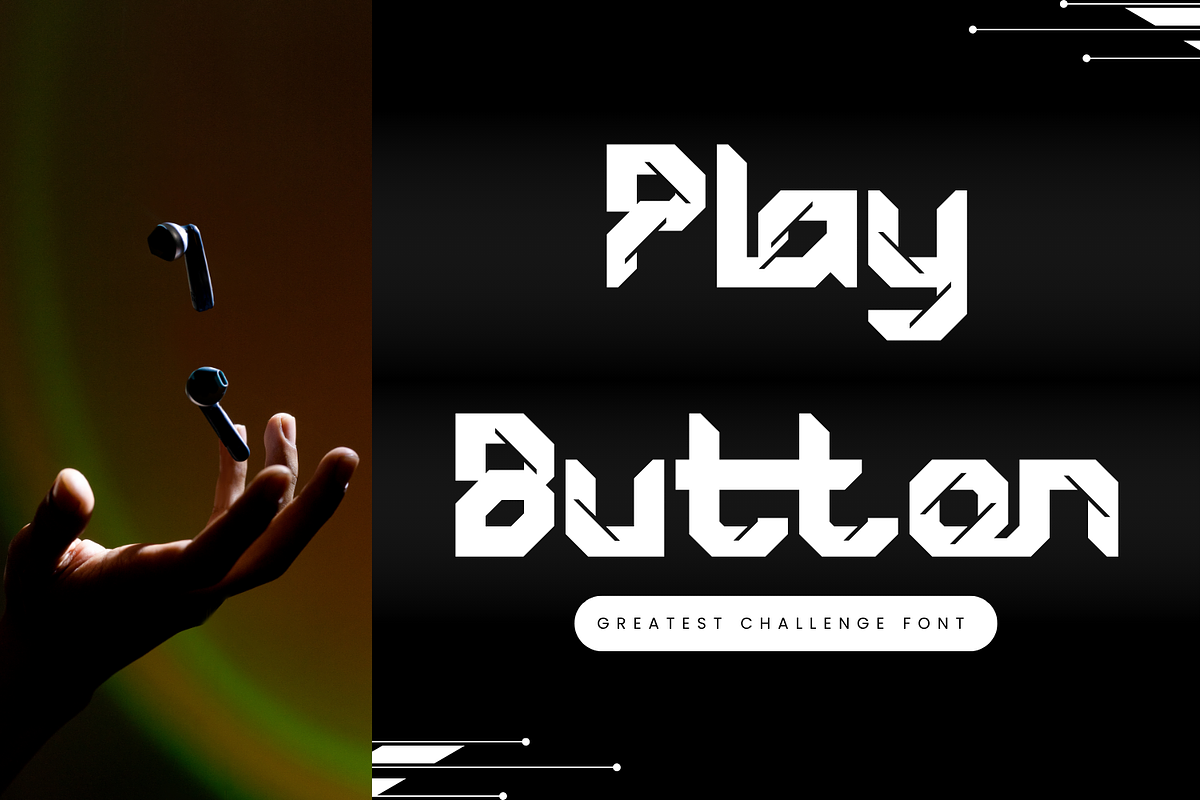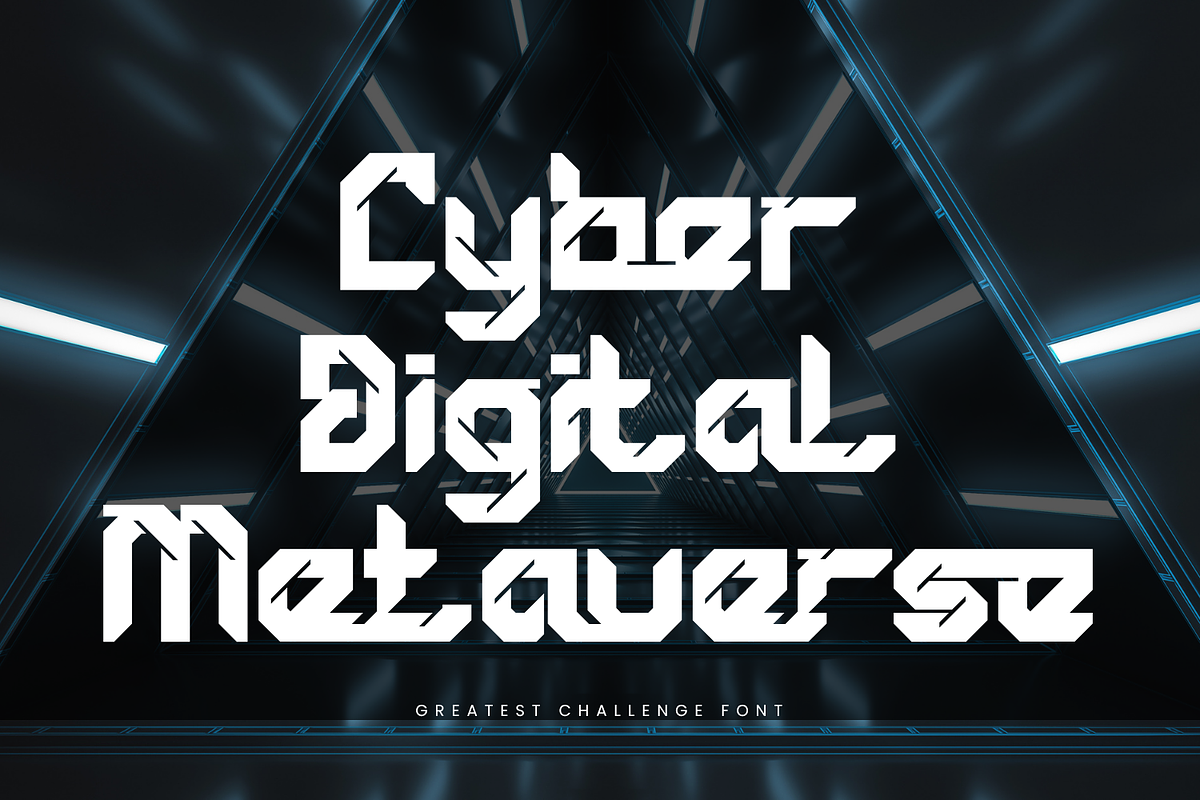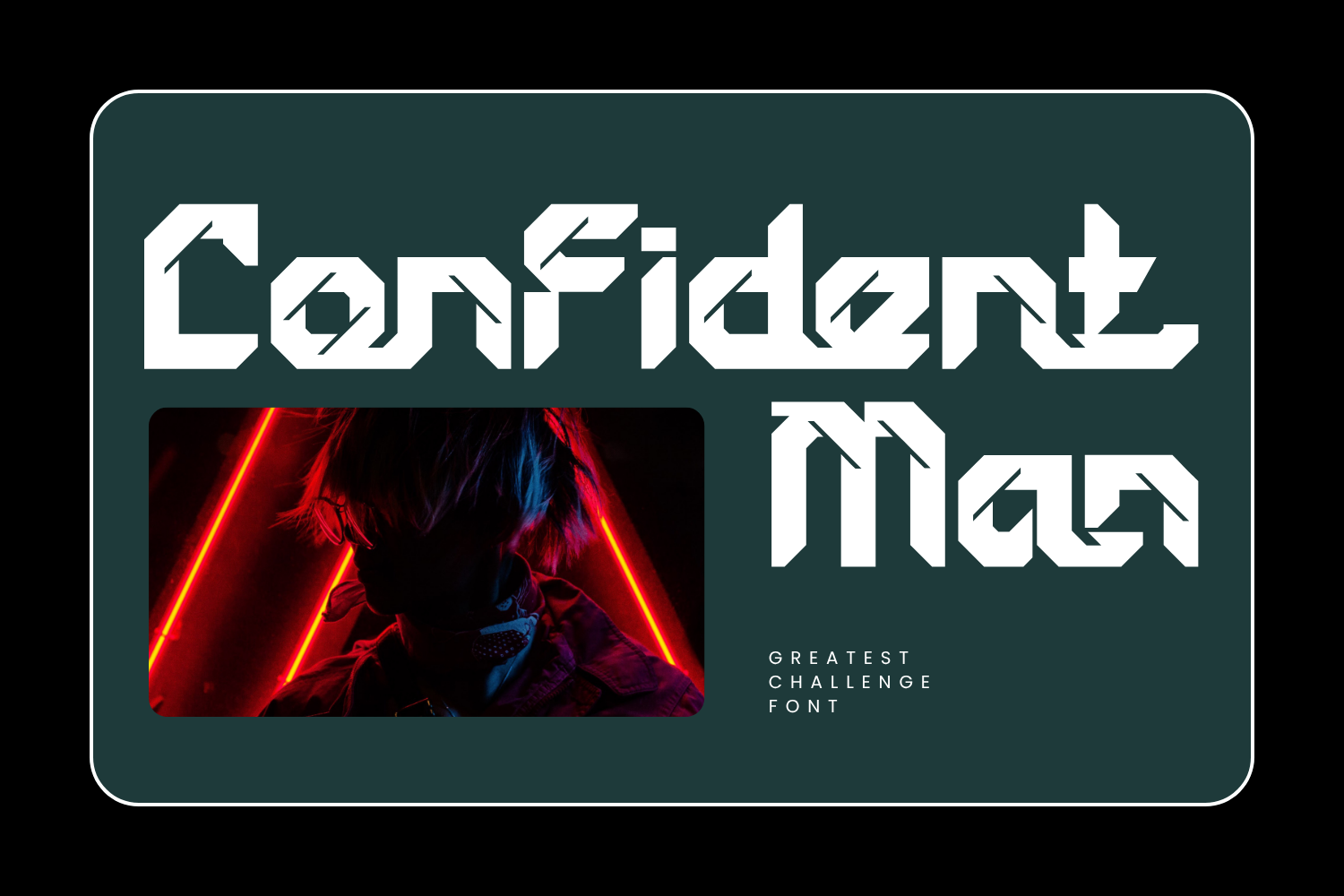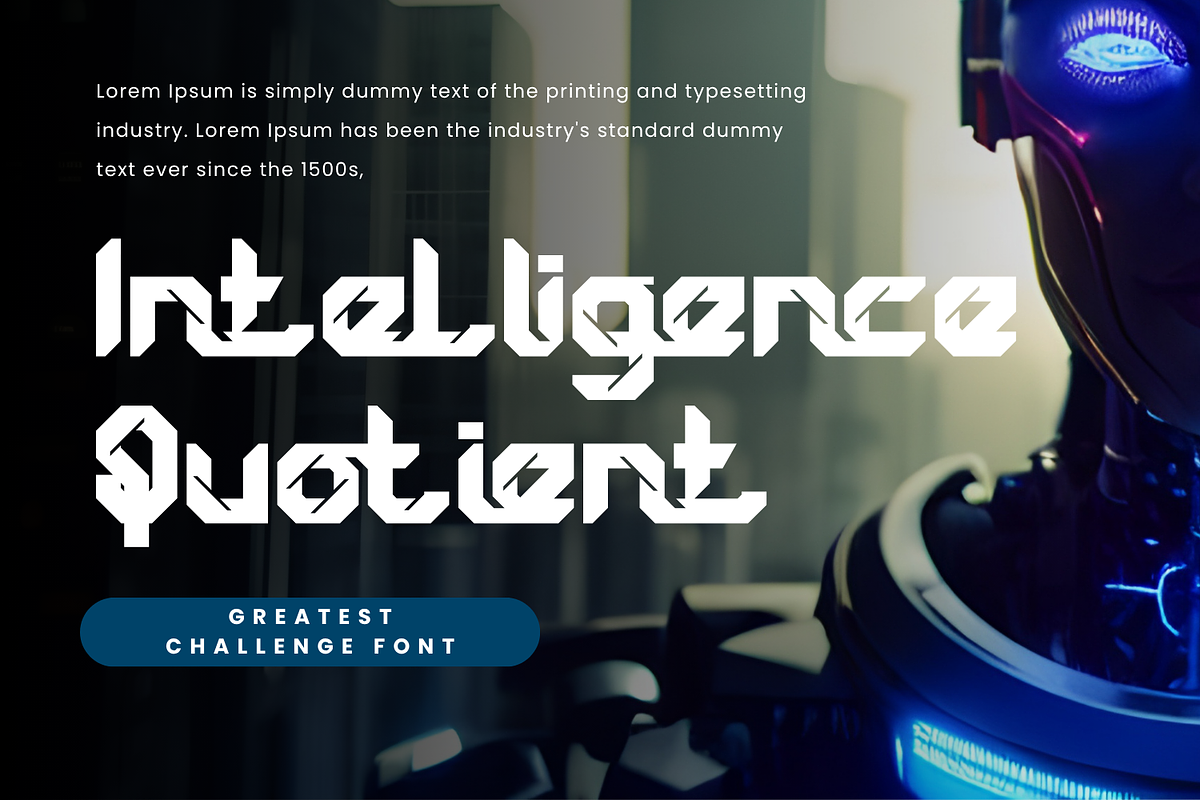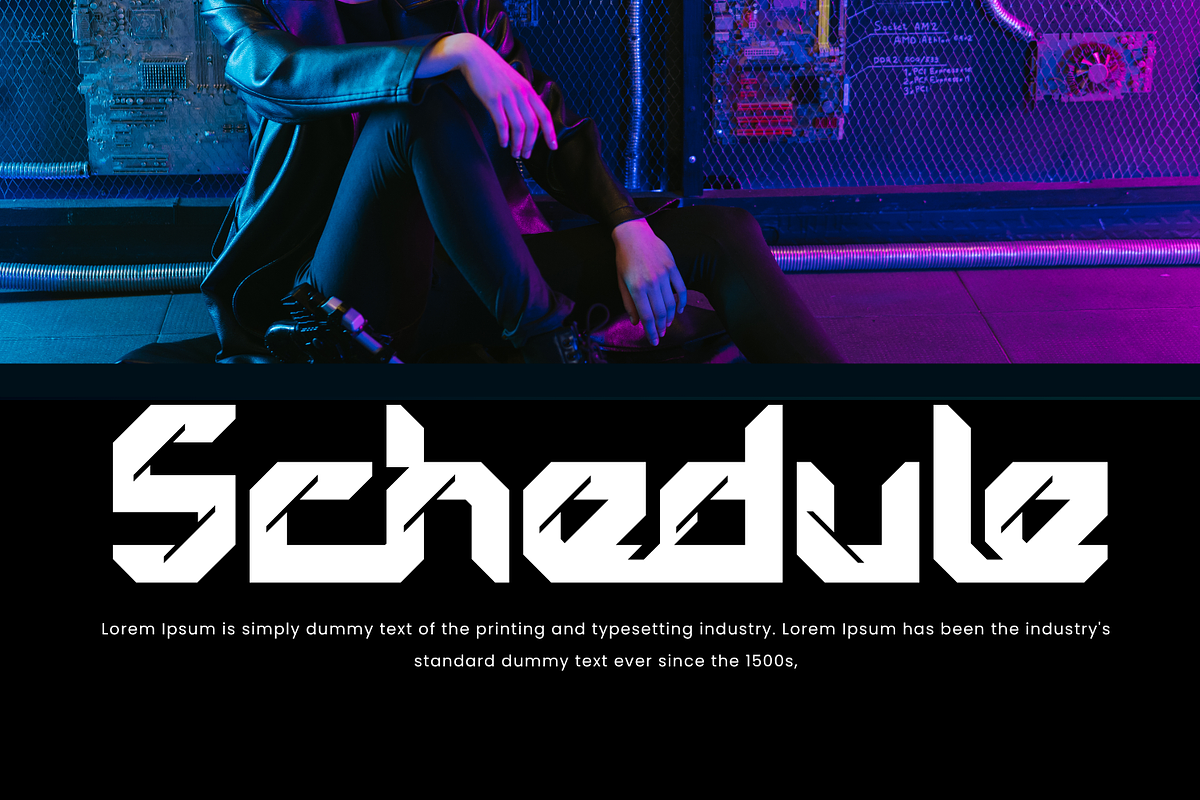
Greatest Challenge - Tech Font
\*\Greatest Challenge - Tech Font \\*is a bold futuristic display font inspired by cyberpunk aesthetics and advanced technology design. Featuring strong geometric letterforms and sharp angular cuts, this typeface delivers a powerful mechanical and digital look that stands out instantly. Each character is crafted with precise edges and unique cut details, giving it a high-tech identity reminiscent of circuits, robotics, and sci-fi environments. Greatest Challenge is perfect for gaming titles, tech branding, futuristic posters, logos, and any project that demands a modern, edgy style.
🔤Features:
Uppercase & Lowercase Letters
Around 100 Special Ligatures & Alternates
Accented Characters for multilingual support
🔤About 100 ligatures combined with Stylistic Alternates Font:
ac ad al an ar as at au av be ca ce ch co ct de di ea ec ed ee el em en ep er es et fe fo fr ge ha he hi ho ie ic il in io ir is it ju ke la le li ll lo ly ma me mi nc nd ne ng no nt ns oc of om on oo op or ot ou ow pa pr ra rd re ri ro rs rt se sh si so ss st ta te th ti to tr tt um un ur ve wi wo